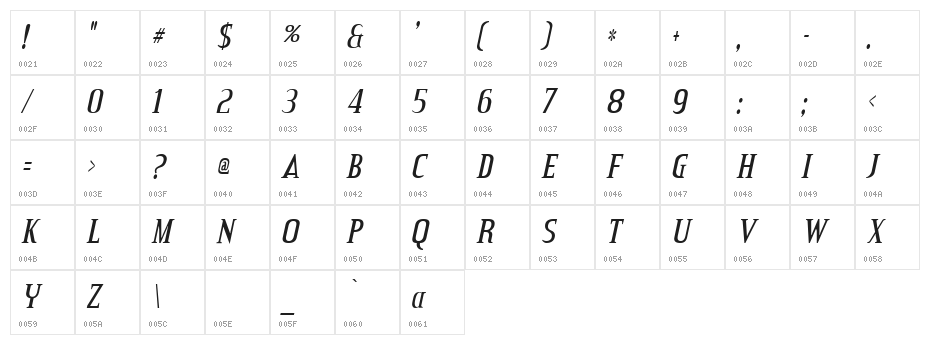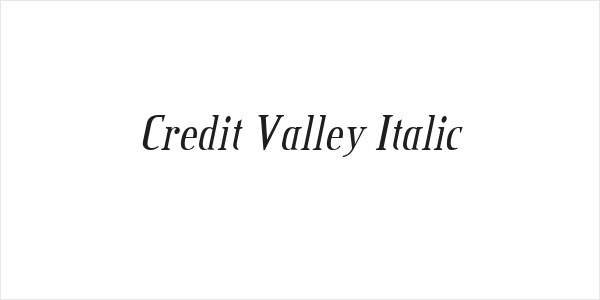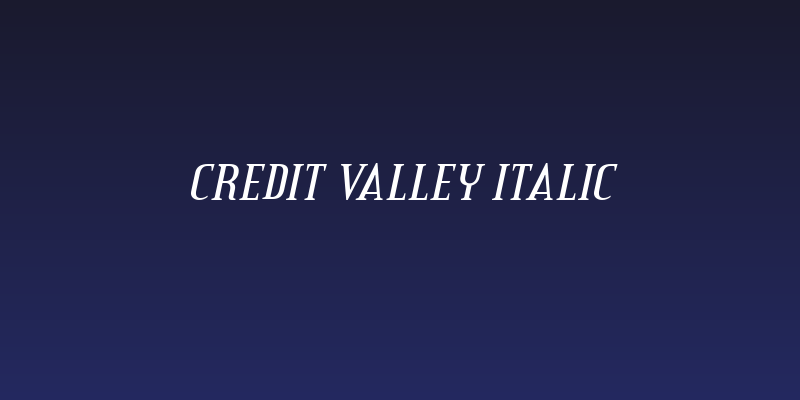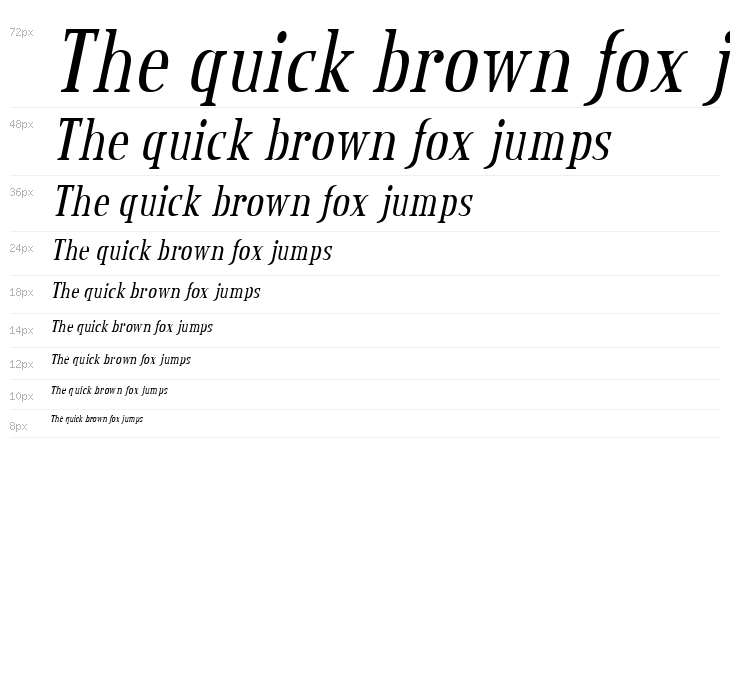
Credit Valley Italic Font
Credit Valley Italic Description
This elegant serif font features a distinct italic style, characterized by its smooth, flowing lines and slight slant to the right. The uppercase letters are tall and refined, while the lowercase letters maintain a consistent style with a touch of sophistication. The numerals are clear and easy to read, complementing the overall aesthetic. Special characters are designed with the same attention to detail, ensuring a cohesive look across all glyphs. The font's classic appeal makes it suitable for a variety of applications, offering both readability and style.
Overall StyleClassic
Proposed ProjectsIdeal for elegant invitations, formal documents, branding, and editorial design.